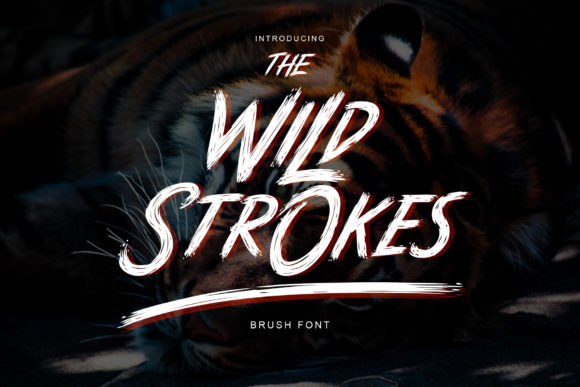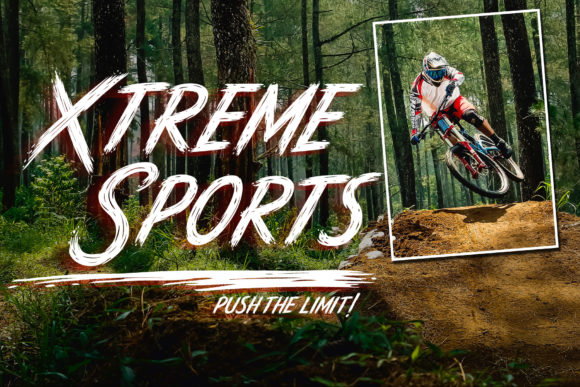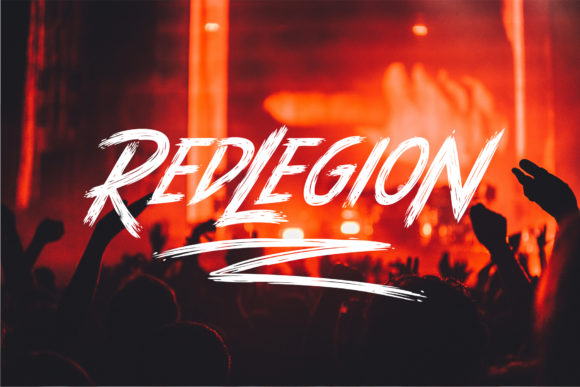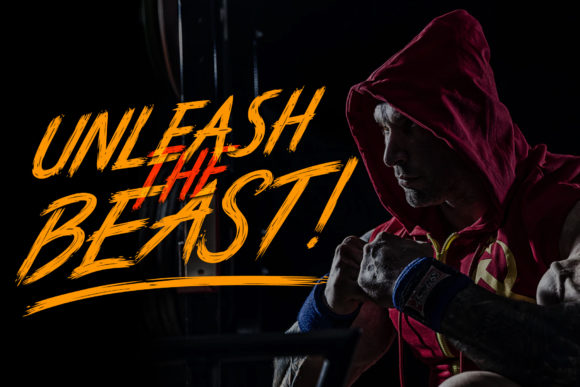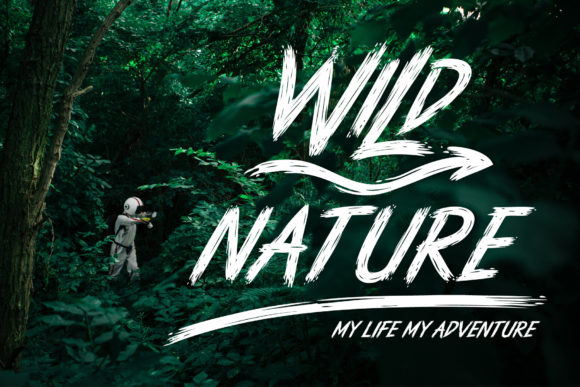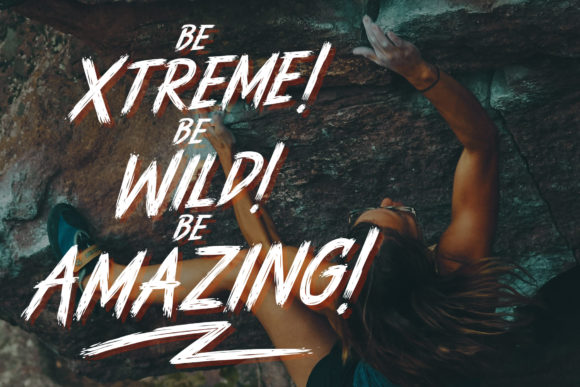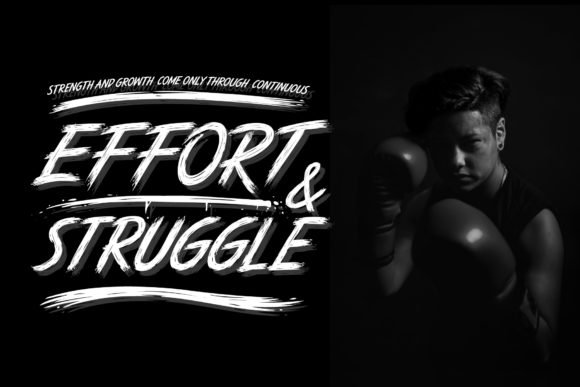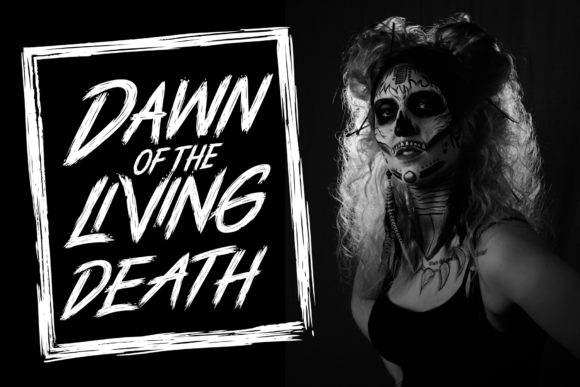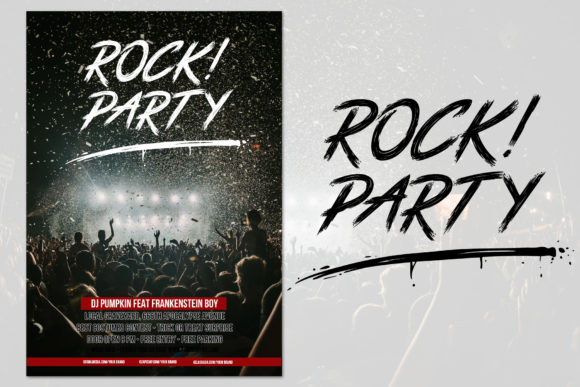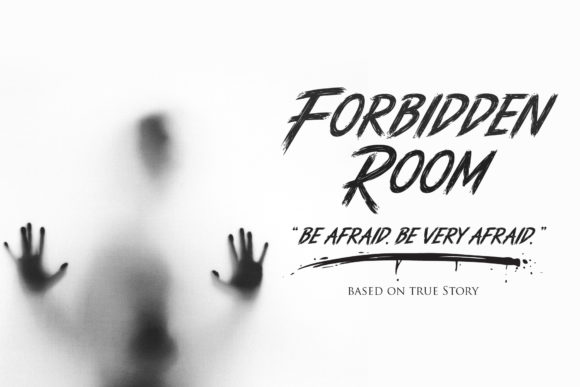
Wild Strokes Font
About Wild Strokes Font
As its name suggests, Wild Strokes features hard-to-contain lettering. It will unleash the raw potential of any design project.